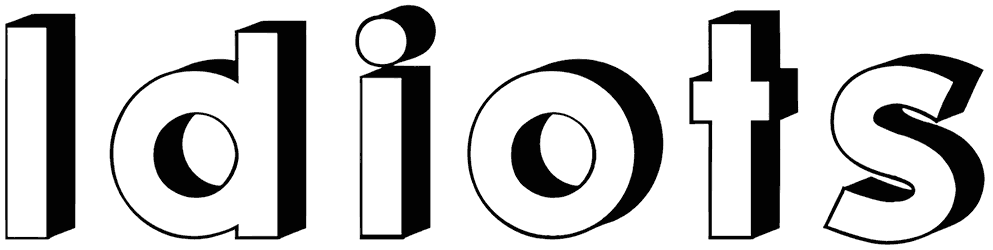
Idiots Font
Your coming design can become bold and captivating with a memorable and retro outward. This outline font, which is called Idiots, has a 3D and matchable style that would be used for many subjects and projects. The shadow font doesn’t have most punctuation marks, but you can count on it to display your designs from logos to web graphics with a professional vibe.